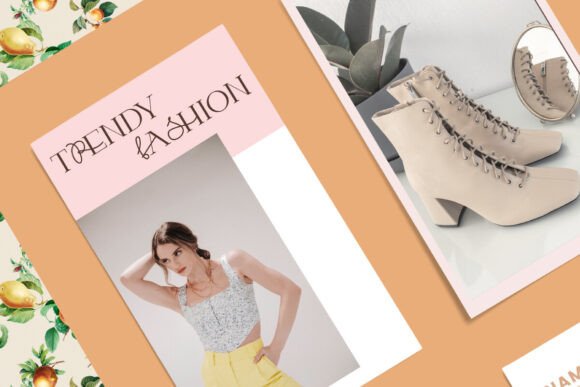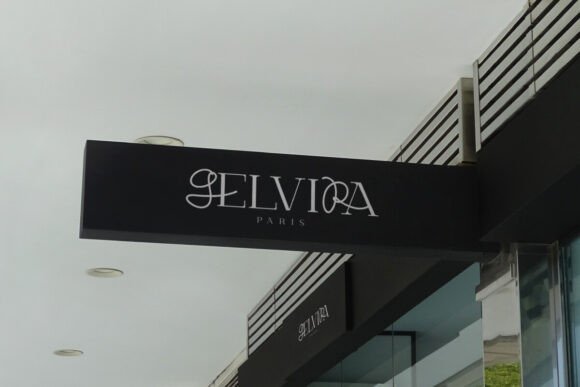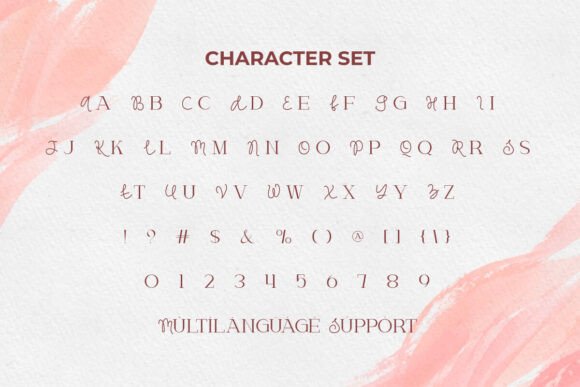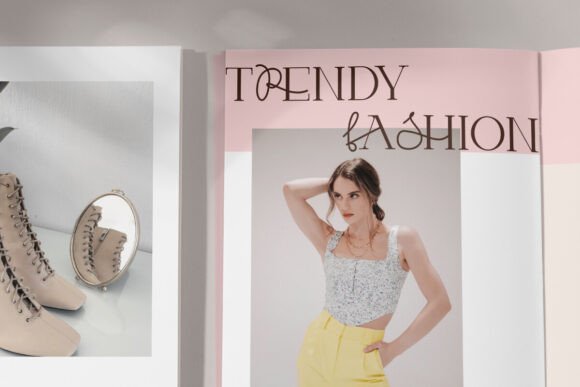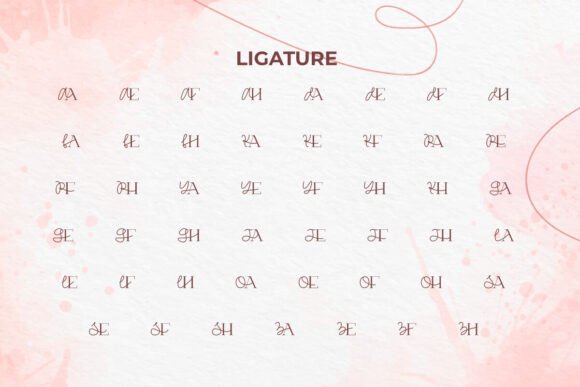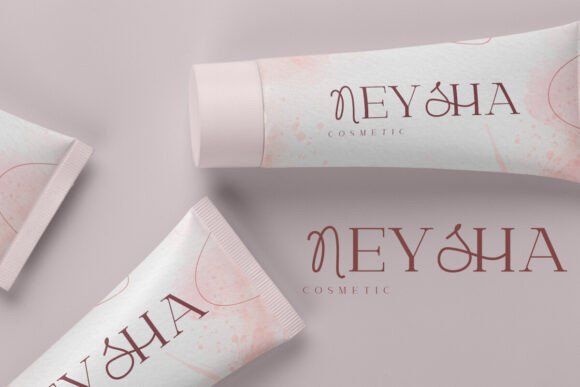
Unlock the Elegance of Your Designs with Clora Font
Have you ever stared at a blank canvas, trying to find the perfect font to bring your creative vision to life? The blank page stares back, taunting you with its emptiness, until suddenly, a spark of inspiration strikes. You envision a luxurious, elegant font that exudes sophistication and refinement, and Clora Font is born.
Clora Font is a masterful blend of styles, combining the minimalist charm of a script font with the classic sophistication of a serif font. This unique pairing creates a stunning visual effect that elevates any design to new heights. Whether you’re crafting a brand image, designing a custom label, or creating a marketing material, Clora Font is the perfect companion to bring your creative vision to life.
Clora Font Key Features
- Unique Characteristics: A modern, elegant script font with a unique blend of calligraphy and hand-painted elements, making it perfect for creative projects and designs that require a touch of sophistication and whimsy.
- Font Styles: Regular, Bold, Italic, Bold Italic, and many OpenType features, including swashes, ligatures, and contextual alternates.
Clora Font Review
Overall, I’m quite impressed with the Clora Font. It’s a beautiful, elegant script font that works well for various design projects, especially those requiring a touch of sophistication and refinement. ✨
- Unique aesthetic: The Clora Font has a distinctive, handwritten feel that sets it apart from other script fonts.
- High-quality glyphs: The font’s glyphs are well-designed, with clean lines and smooth curves.
- Excellent legibility: The font is easy to read, even at smaller font sizes.
However, there are some limitations to consider. ⚠️
- Limited language support: The Clora Font may not include all the languages you need, which could be a problem for international projects.
- Not ideal for bold or italic text: While the font works well for regular text, it’s not as effective for bold or italic text, where it can appear somewhat awkward.
Overall, I think the Clora Font is a solid choice for designers looking for a elegant script font. While it may have some limitations, its unique aesthetic and high-quality glyphs make it a great addition to any design project.
Clora font is best used for titles, headings, and other large text elements where its unique features can be showcased. It’s particularly effective in minimalist designs where the font’s intricate details can be appreciated. Be sure to use the font consistently throughout your design to create a cohesive look.
Lato Font is a clean and modern sans-serif font with a friendly and approachable feel. It is suitable for use in digital media, such as websites and apps, where a sense of warmth and approachability is desired.